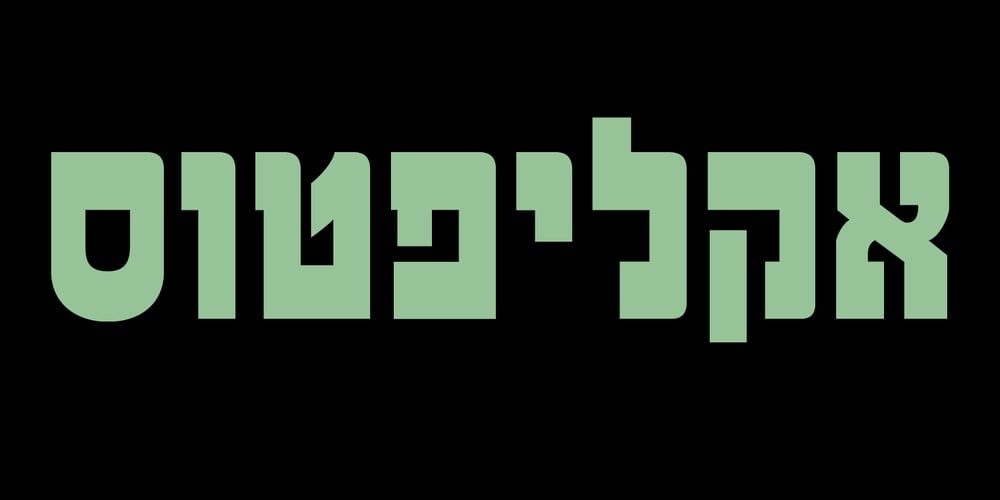
Mechaot Poster MF
Mechaot Poster MF Font Family was designed by Eliyahu Fried and published by Masterfont. Mechaot Poster MF contains 1 styles and family package options. So elegant, so bold and robust – to add to the elegant industrial look.